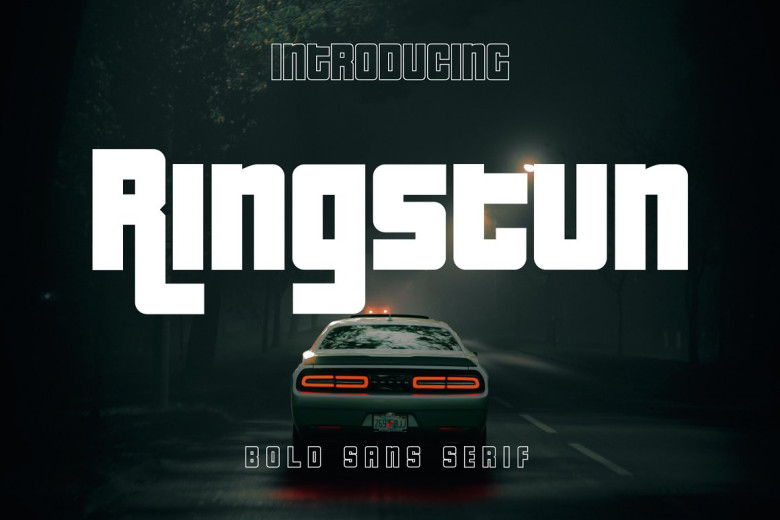
Ringstun Font
Introducing Ringstun, a modern and bold sans serif font. This is perfect for you who needs a typeface for logo designs, magazine, social media, brochure and much more.
Ringstun Bold Sans Serif Font